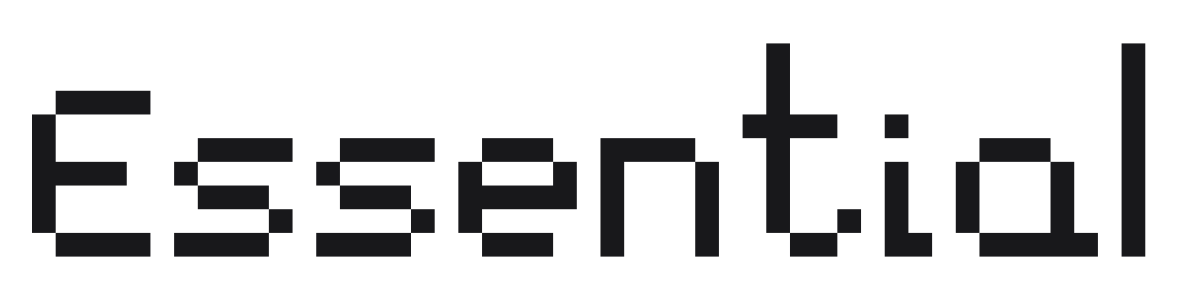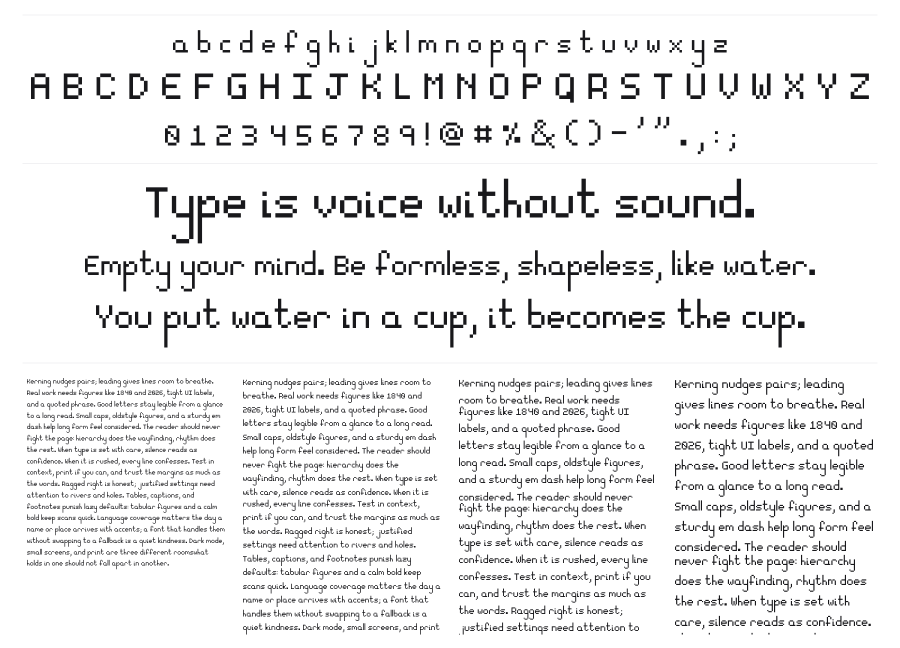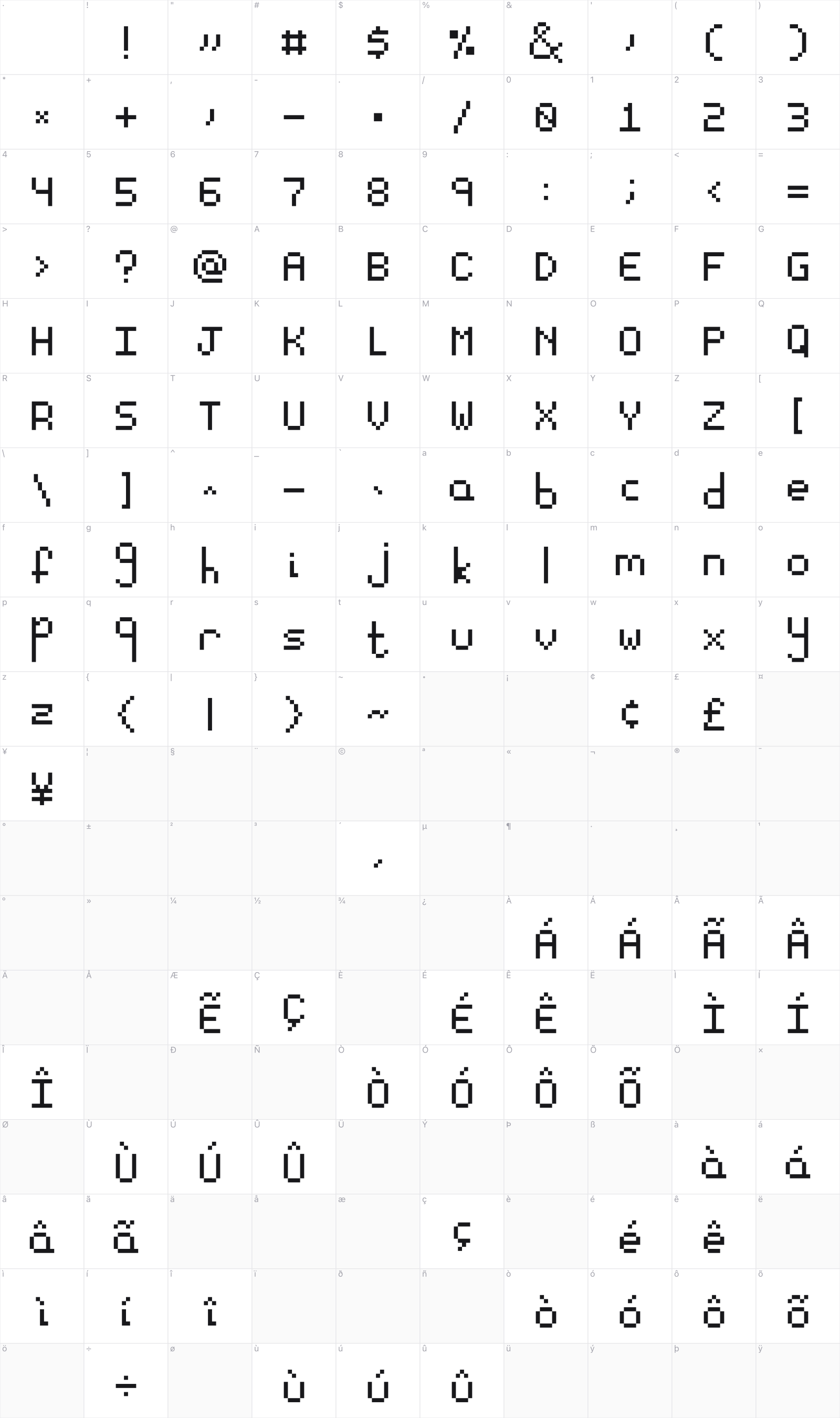
Essential
Essential is a pixel bitmap font built on a strict square-module grid, echoing the character sets of early home computers and handheld consoles. Each character is assembled from chunky pixel blocks with slightly rounded corners, striking a balance between hard digital geometry and a warm, approachable feel. It reads clearly at large sizes and carries strong nostalgia for 8-bit screen typography.